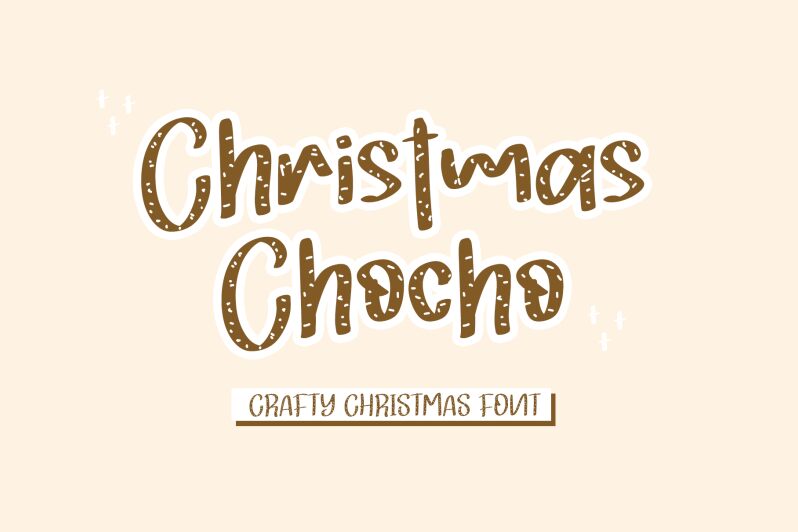
Christmas Chocho font by Letterafa Studio is a free holiday-themed font with a casual feel. Decorative, whimsical, and informal, Christmas Chocho is the perfect font to convey the holiday spirit in a fun and engaging way. Creative and warm friendly letterforms with an informal feel, this font was crafted before Christmas with this holiday in mind.
Use it for actual Christmas projects and for other events that have a calm and warm feel to them and/or a holiday spirit. Underline essential information in a creative fun way when you choose Christmas Chocho for your invitation cards, flyers, greeting cards, holiday decoration items, greeting letters, and many more. The font is suitable for marketing campaigns and logos for clients who have specific needs related to the atmosphere and feel that this font can help achieve and promote.